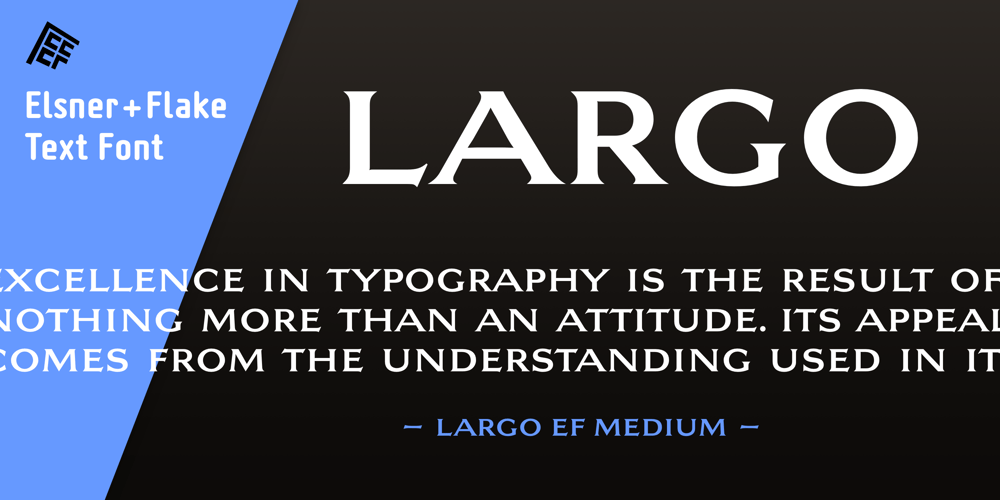
Largo EF Font Family was designed by Johannes Wagner and published by Elsner+Flake. Largo EF contains 2 styles and family package options. The typefaces Largo Mager (Light) and Largo Halbfett (Medium) were cast for the first time in 1937 by Ludwig & Mayer based on the designs by Hans Wagner. One weight Largo Licht (Outline) was added in 1956. All fonts were only configured with capitals. The digital version of Largo has pointed serifs and not the slightly rounded ones seen in the hot metal versions which gives the typeface a more elegant note. Largo is often used for fine printing jobs as business cards or formal invitations, or in the fashion and cosmetics fields. Hans Wagner was born in Munich in 1894 and died in 1977 in Altenburg where he had worked as a painter, graphic designer and book designer. In addition to the Largo typeface, he developed, among others, the Altenburger Gotisch (1928), the Welt-Antiqua (1931-1934) and the Wolfram (1930).